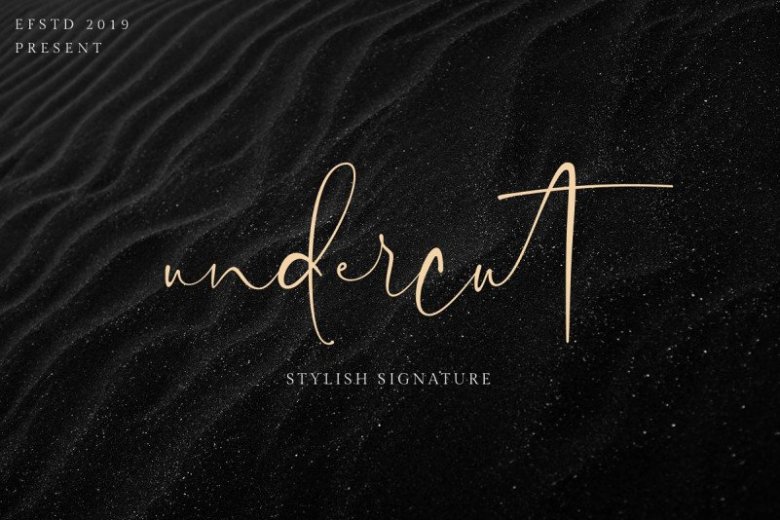
Undercut Signature Font
Undercut Font is a stylish signature font. This handwritten script has been attentively written, with gentle curves to produce a font thats completely distinctive and original. It is design and shared by Ef Studio. Undercut script is a font inspired by an undercut hairstyle that looks masculine. It is suitable for your work that requires a natural and masculine signature style. Also with their help, you can create a Wedding lettering or beautiful frame for your home. Or just use for your small business, book covers, stationery, marketing, magazines and more.